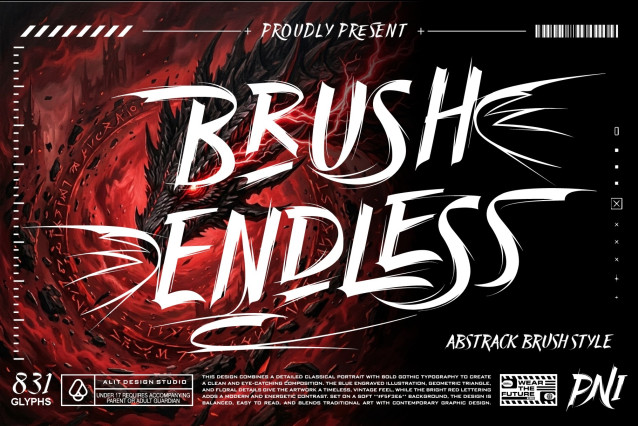
Brush endless Font
Brush Endless Typeface: Raw Energy & Gothic Aesthetics
Unleash unapologetic raw power with the Brush Endless Typeface. Designed for creators who refuse to blend in, this aggressive, abstract brush font perfectly balances urban streetwear edge with dark, mystical gothic undertones. Whether you are designing brutalist apparel, heavy metal merchandise, fantasy gaming titles, or high-impact posters, Brush Endless delivers a striking, hand-painted aesthetic that commands attention.
Crafted with premium quality and meticulous attention to detail, this typeface goes far beyond standard alphabets. It is built to provide maximum versatility and a truly customized typographic rhythm for any high-end design project.